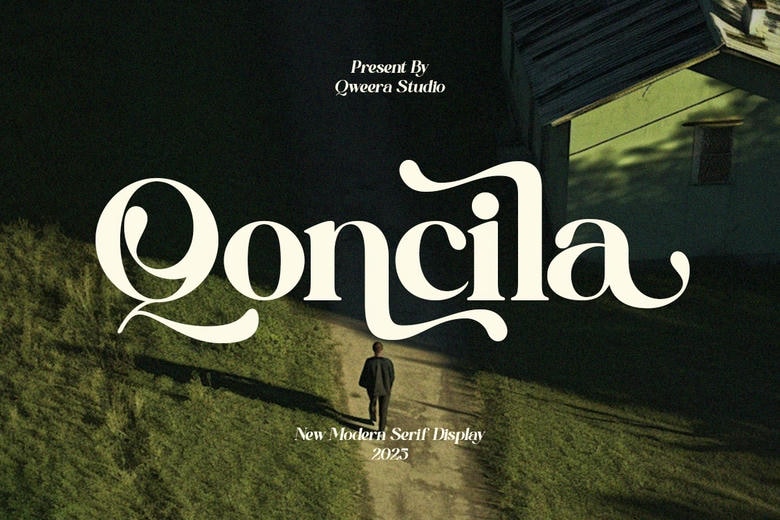
Qoncila Font
Qoncila Font is a contemporary luxury swash serif typeface with heavy contrast and dramatic curves. It comes in dramatic elegance, clean structure and is designed to do high-impact branding and sophisticated editorial layouts.
Ideal in logos, fashion campaigns, packaging, branding of a boutique and creative poster design, Qoncila adds high end character and high visuality to any project. Its swash reverses and polished ligatures give it the flexibility and the personal touch and balance of professionalism.
Qoncila Serif Font